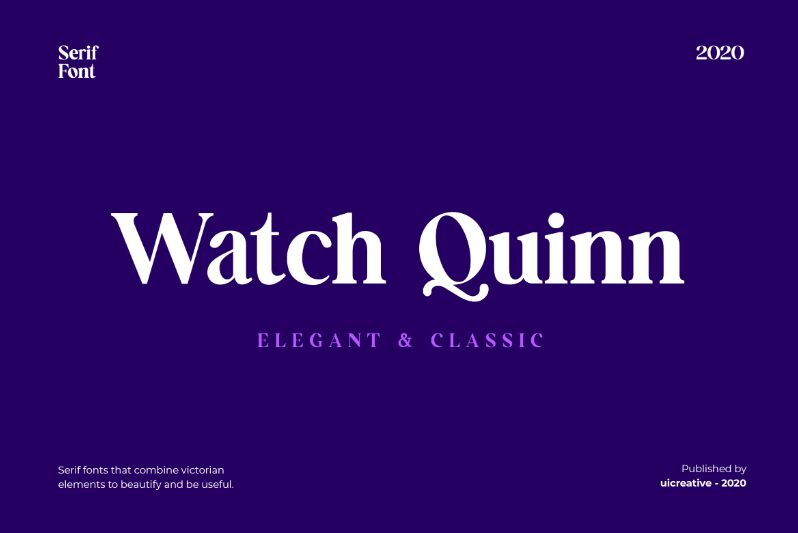
Watch Quinn
Watch Quinn font is a sophisticated serif typeface by UI Creative, embodying timeless elegance and classic aesthetic. Its refined and polished style translates into character-rich letters that make for luxurious, artistic textual projects. The font’s harmonious nature also gives a certain balanced and sleek look to minimal designs alongside illustrations.
Available as a free serif font, Watch Quinn can be used for headings, subheadings, runway visuals, album covers, book covers, business cards, postcards, magazines titles or sections. Enjoy stunning water packaging projects within your portfolios created with this font that will translate into potential clients and job interviews for these positions.